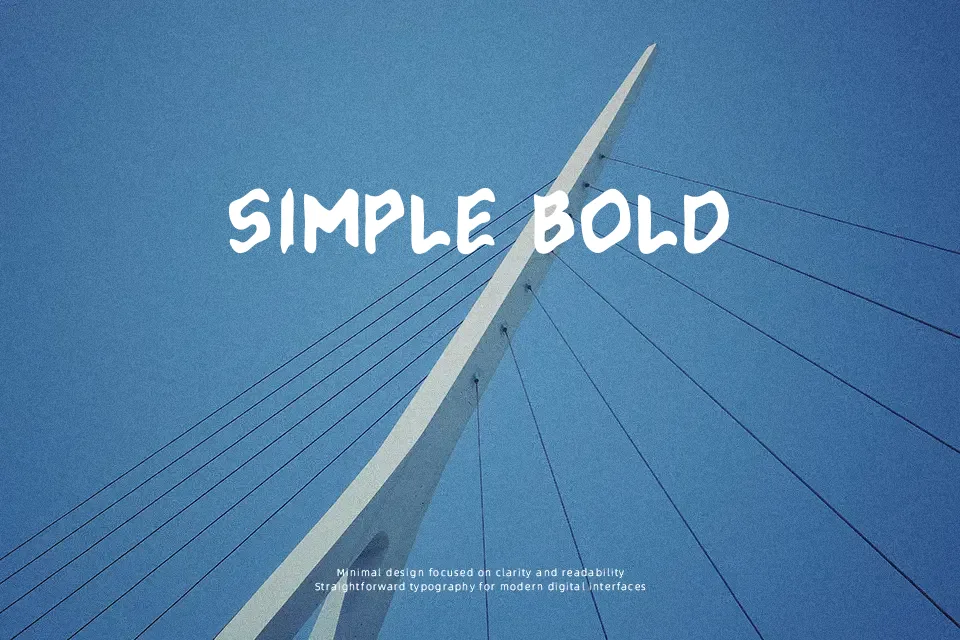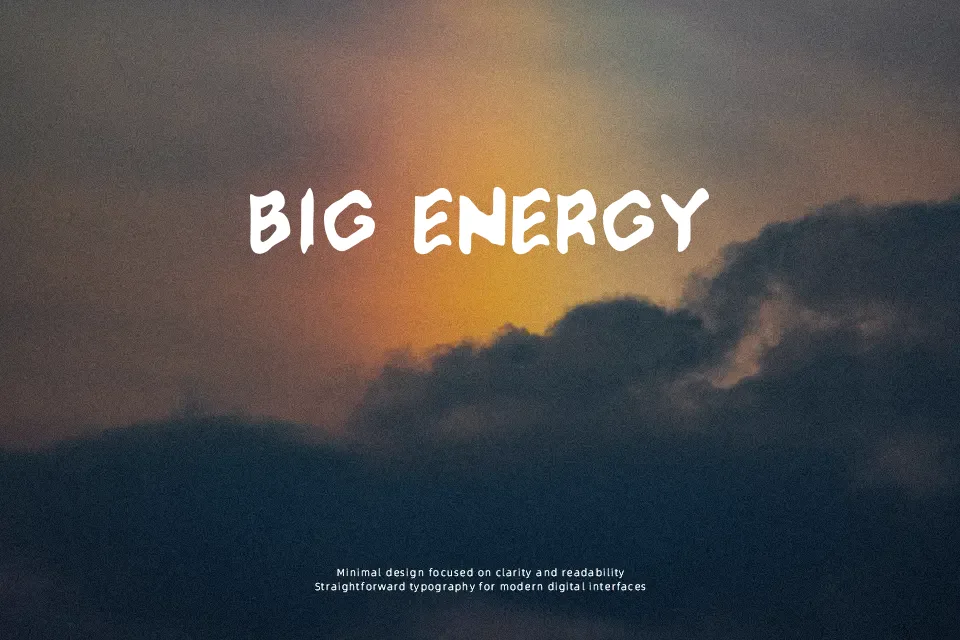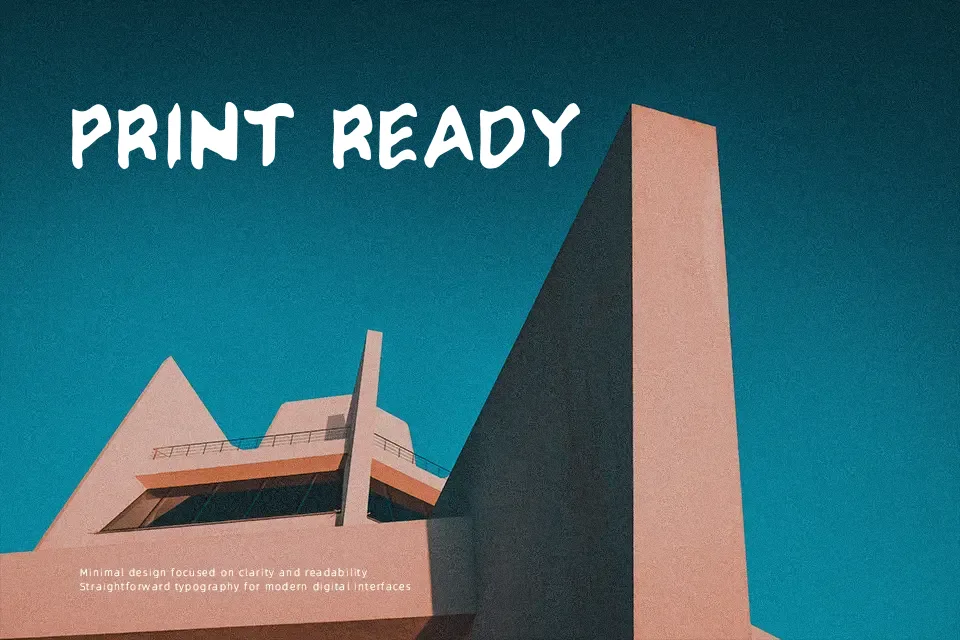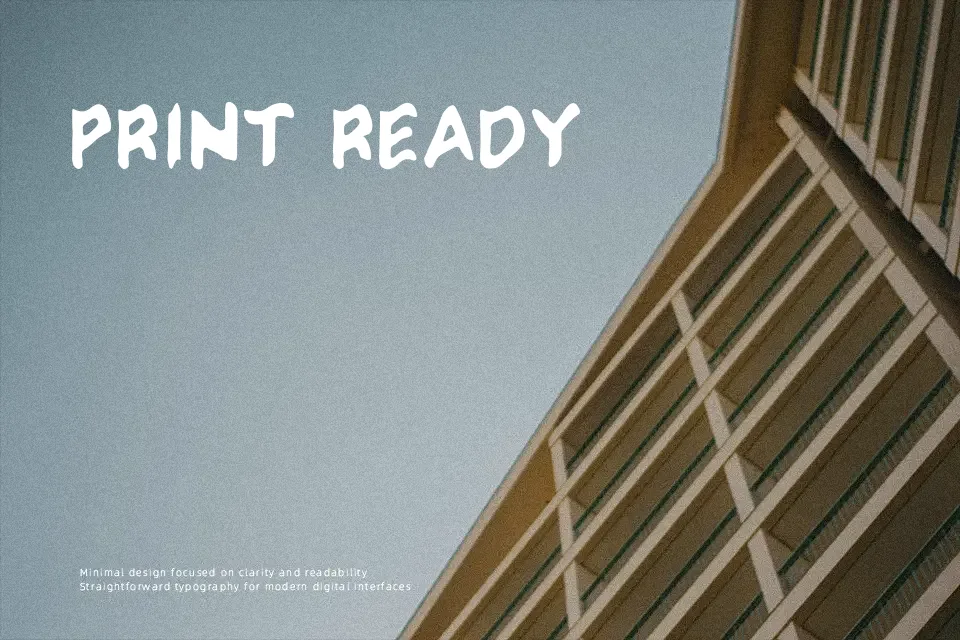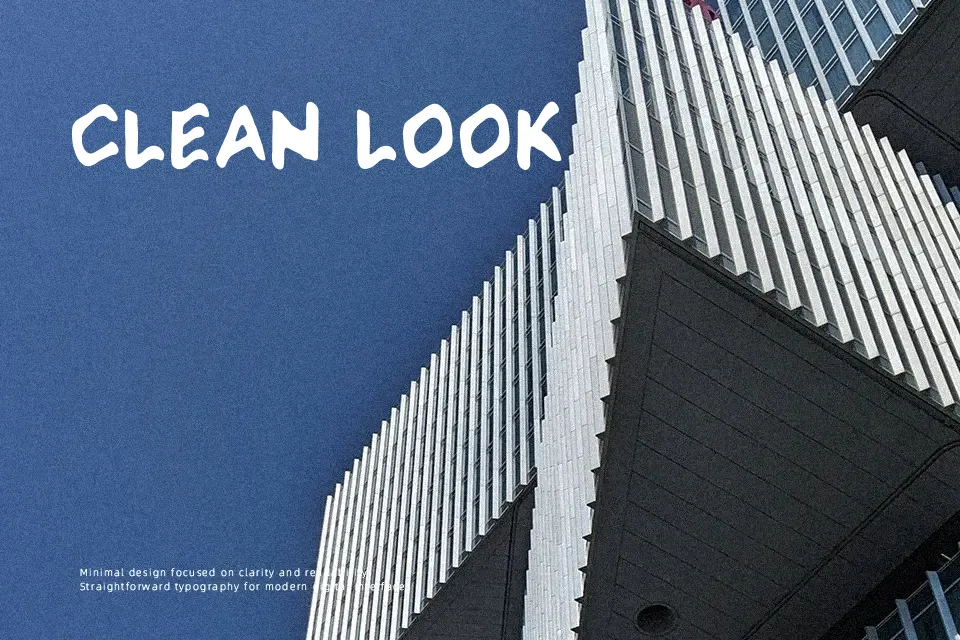
Soliaterz Font
Soliaterz Font exhibits an unconventional display structure defined by heavily distorted strokes, jagged edges, and an energetic handwritten rhythm. The letterforms feature uneven line weights and asymmetrical proportions, giving each character an authentic raw feel. Compact letter spacing creates dense typographic groupings that immediately draw visual attention. While the typeface delivers commanding presence on event flyers, apparel merchandise, and artistic album sleeves, the intricate surface irregularities reduce reading comfort across extended paragraphs. At display scales, the bold outlines maintain sufficient legibility, yet the complex distressing becomes cluttered when scaled down to small caption sizes.
Best For: music festival posters, streetwear apparel graphics, album covers, game title cards
Not Ideal For: long paragraph text, mobile UI body copy, formal corporate documents, small caption labels
Perfect for headline, logo, and music, with a artistic and decorative style.